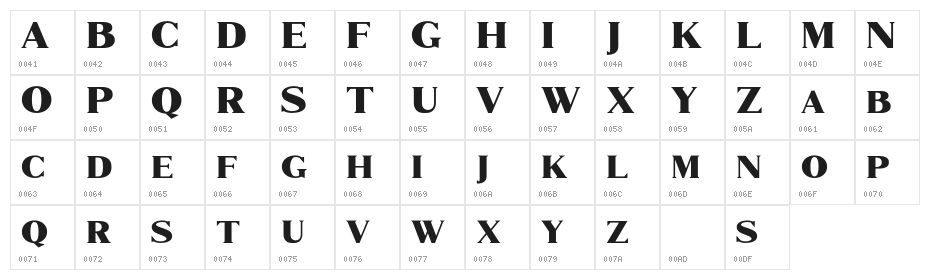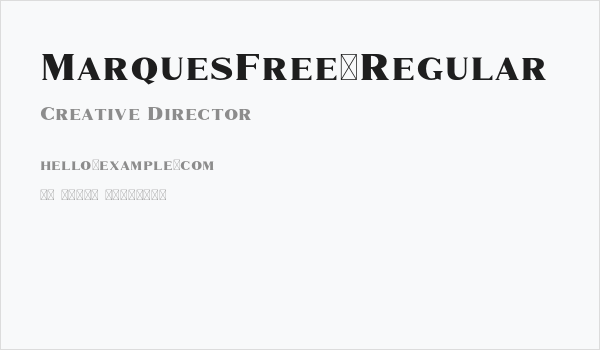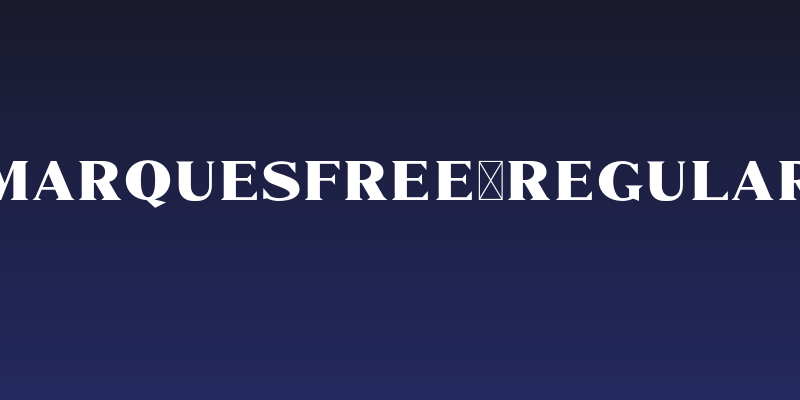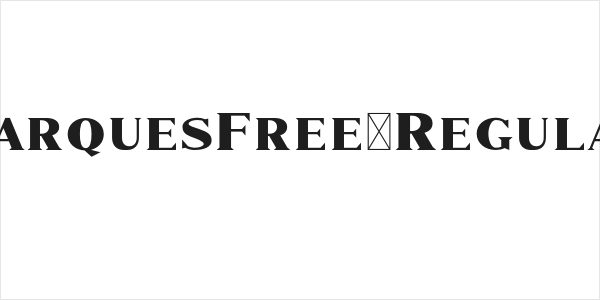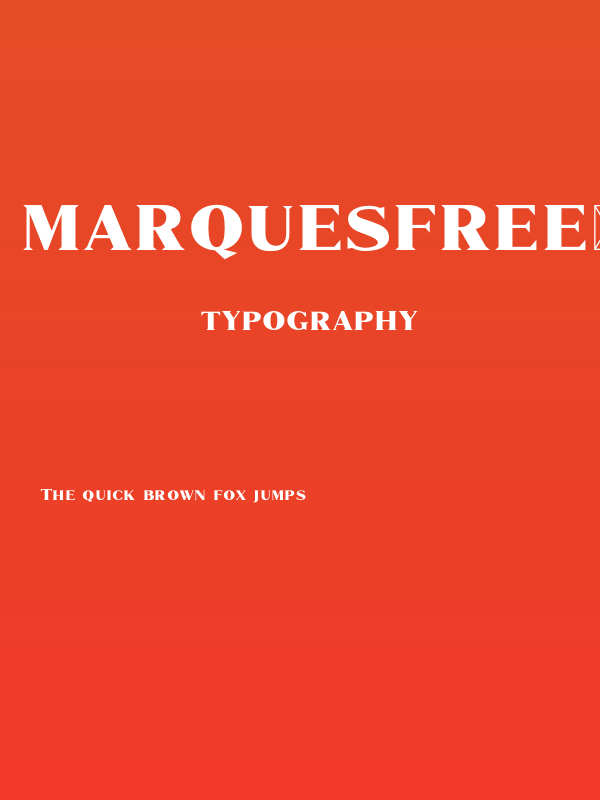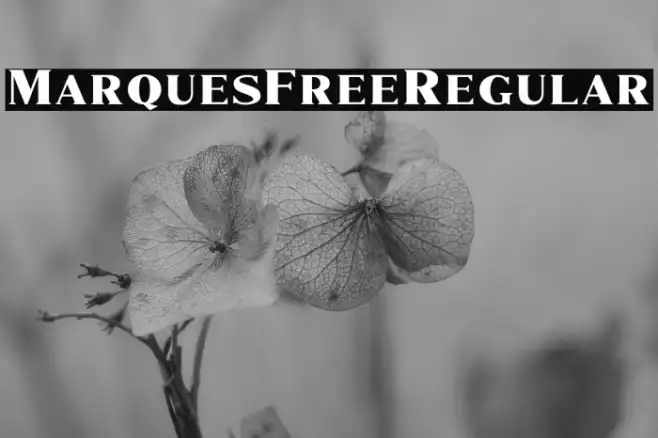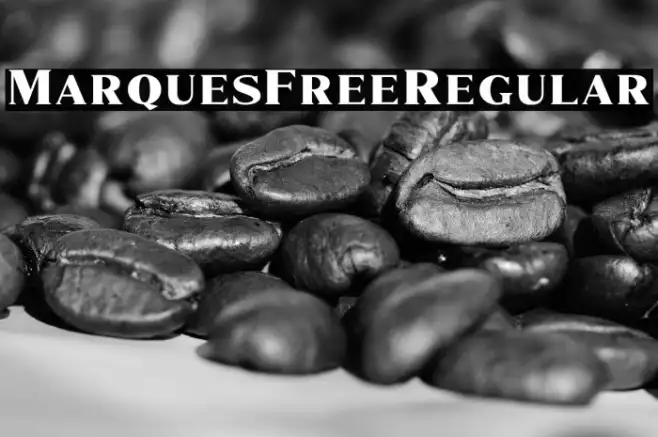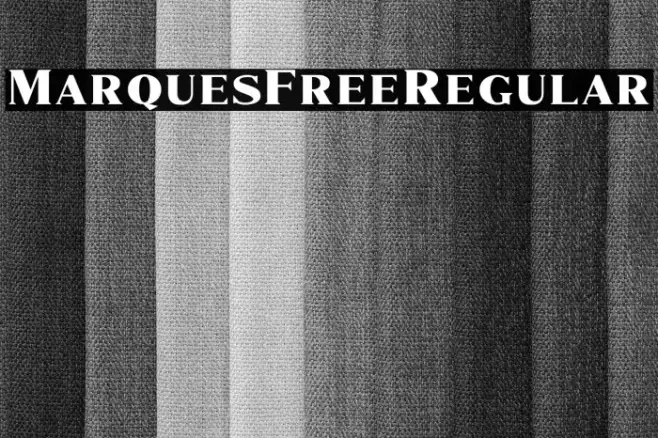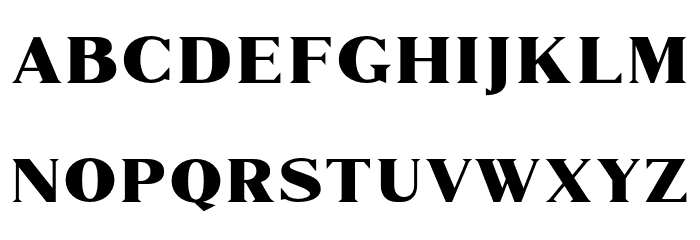
MarquesFree-Regular Font
MarquesFree-Regular Description
This font features bold, strong letterforms with a classic serif style. The characters are well-defined with thick strokes and sharp serifs, giving it a traditional and authoritative appearance. The uppercase letters are particularly striking, with a commanding presence that makes them ideal for headlines and titles. The font maintains a consistent weight throughout, ensuring readability and a cohesive look. Its design is reminiscent of classic Roman typefaces, making it suitable for projects that require a touch of elegance and formality.
| Proposed Projects | Ideal for book covers, formal invitations, branding materials, and editorial design. |